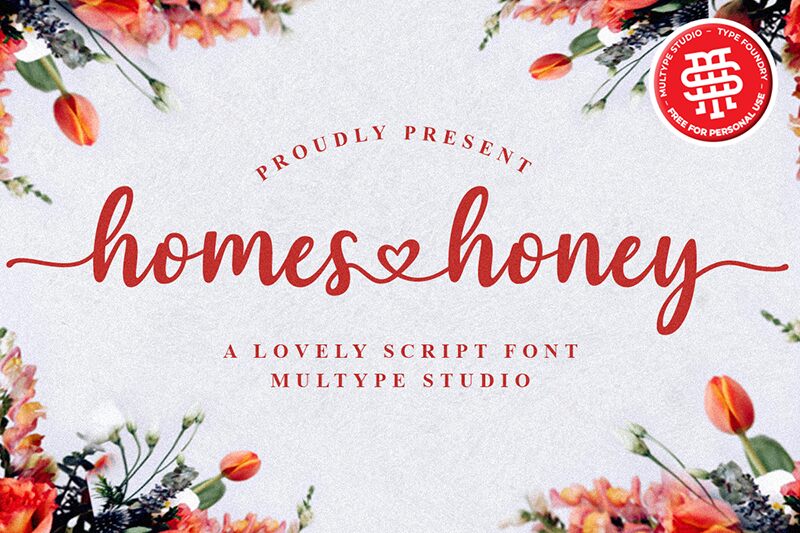
Homes Honey, crafted by Multype Studio, exudes a warmth that can only be captured through the personalized touch of a handwritten style. Its flowing letters and organic curves evoke the charm of a cherished note, making it feel familiar and inviting. The font's elegant loops and strokes hint at a casual sophistication that speaks to its versatility.
Perfect for branding projects, invitations, and product packaging that require an intimate, bespoke feel, Homes Honey adds a handcrafted essence to any design. This font is ideal for creatives looking to convey authenticity and a personal touch in their work.